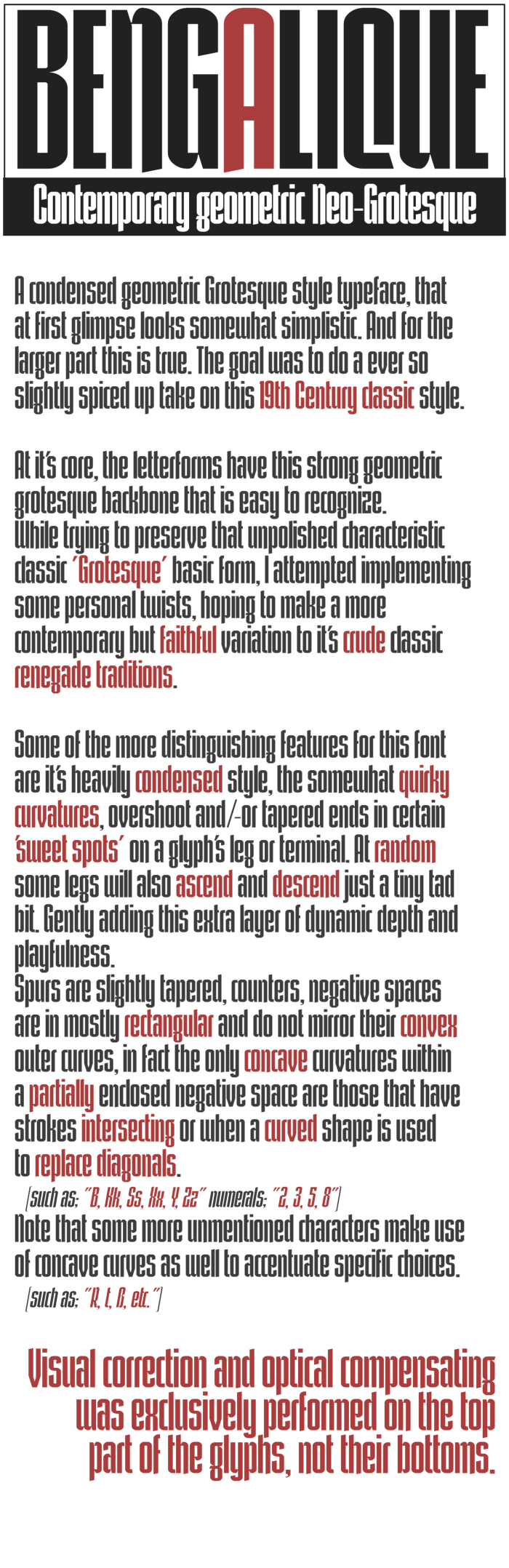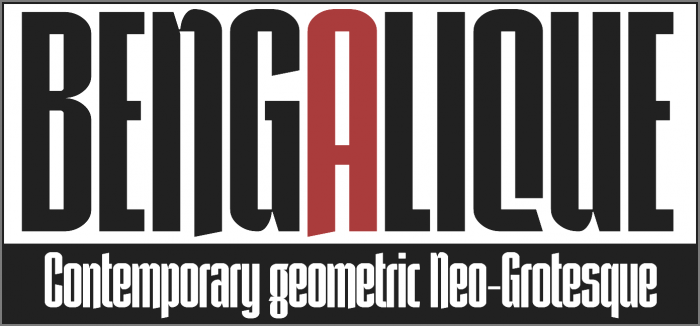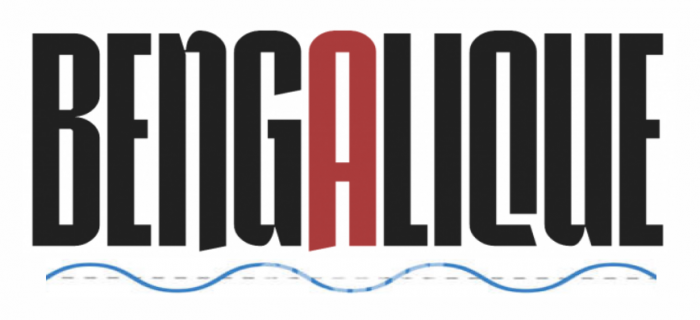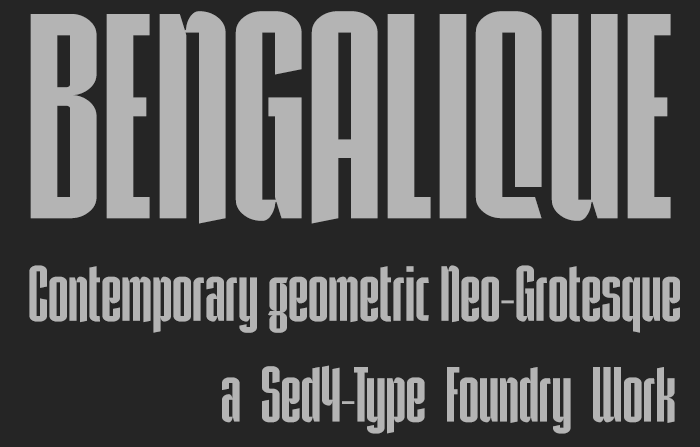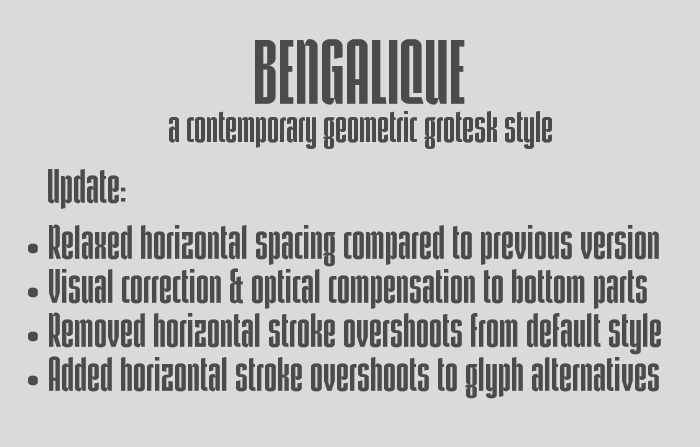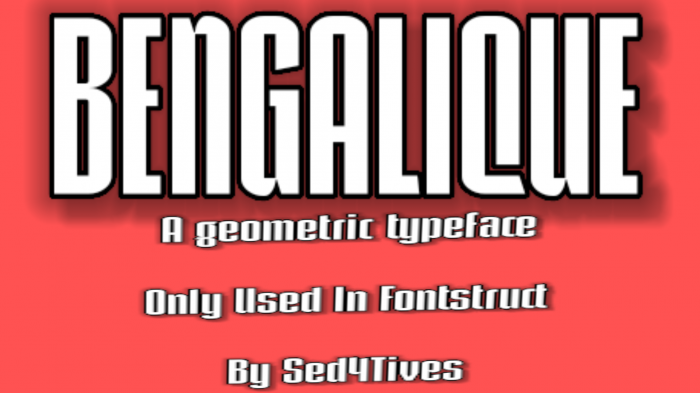
• BENGALIQUE - Contemporary grotesk type
A condensed geometric Grotesque style, that at first glimpse looks somewhat simplistic. And for the larger part this is true. The goal was to do a ever so slightly spiced up take on this 19th Century classic style.
At it's core, the letterforms have this strong geometric grotesque backbone that is easy to recognize.
While trying to preserve that unpolished characteristic classic Grotesque basic form, I attempted implementing some personal twists, hoping to make a more contemporary but faithful variation to it's crude classic renegade traditions.
Some of the more distinguishing features for this font are it's heavily condensed style, the somewhat quirky curvatures, overshoot and/-or tapered ends in certain 'sweet spots' on a glyph's leg or terminal.
At random some legs will also ascend and descend just a tiny tad bit, gently adding this extra layer of dynamic depth and playfulness.
Spurs are slightly tapered, counters, negative spaces are in mostly rectangular and do not mirror their convex outer curves, in fact the only concave curvatures within a partially enclosed negative space are those that have strokes intersecting or when a curved shape is used to replace diagonals.
(such as; "B, Kk, Ss, Xx, Y, Zz" numerals; "2, 3, 5, 8")
Note that a couple more unmentioned characters make use of concave curves as well to accentuate specific choices.
(such as; "R, t, ß, etc.")
Visual corrections and optical compensating was exclusively performed on the top part of the glyphs, not their bottom.
-- Some additional side-bearing and kerning is still required --
No filters used...
The font works best for 'Display Type' at most point size. In smaller quantities it can be used for 'Body Type' as well with some proper adjustments to the horizontal spacing. But, nonetheless the font's condensed nature, it's tight letter spacing and some thinner strokes still heavilly affect the flexibility for legible Body-Type-use.
Recommended size for Digital-Display-use is 28pts or higher, and bellow 20pts the font becomes unreadable in Digital-Display-use. But I hope you like it so far, and feel free to let me know what u guys think! ?
Good work! I like the overall look, but I think it might be convenient to include the visual corrections and optical compensation also at the bottom of the glyphs for easier readability, IMHO.
Perhaps this would overcome a certain undulating visual aspect in that area of ​​the font...
@Sed4tives: You keep churning out fantastic works at a high rate. This one is no exception: beautiful letters supported by plenty of research, documentation, and samples. I found two issues with STF_BENGALIQUE: I think it's a bit crowded. I would test more generous spacing; let the letters breathe. The other issue: the different length of vertical strokes (of h, m, n, x, etc.) is very distracting at the baseline. Elmoyenique pointed out basically the same problem. You could either cut all vertical strokes at the baseline or make the overshoots more pronounced, thus helping the reader to distinguish similar letters. Personally, I like those letters (f, h, m, n, x) as they are. They remind me of blackletters. However, some ideas that look wonderful at the individual glyph level turn out to be not tremendously practical at the text level. Keep up the good work. 10/10
@Frodo: First of all, I relaxed the spacing slightly. I think it better right now. I can imagine that for certain applications the vertical strokes can distract, especially in Body-Type at smaller point sizes. For this reason I wrote this in the description:
"The font works best for 'Display Type' at most point size. In smaller quantities it can be used for 'Body Type' as well with some proper adjustments to the horizontal spacing. But, nonetheless the font's condensed nature, it's tight letter spacing and some thinner strokes still heavilly affect the flexibility for legible Body-Type-use."
Due to the display nature I don't feel okay with completely remove the idea of descending vertical strokes, but in an attempt to somewhat improve the issue at least a little bit I incorporated optical corrections to the bottom part of the glyphs as well.
Why dose capital Q look like that
@نايف : Well, why not? I just liked it that way..